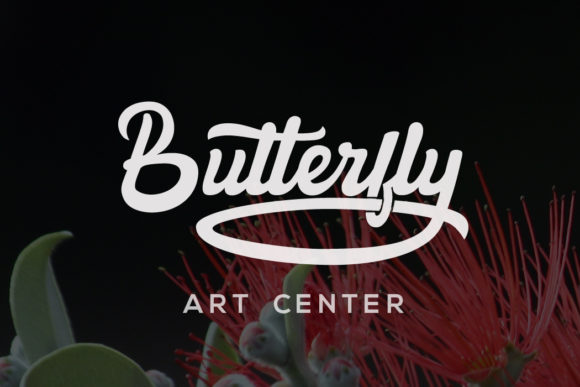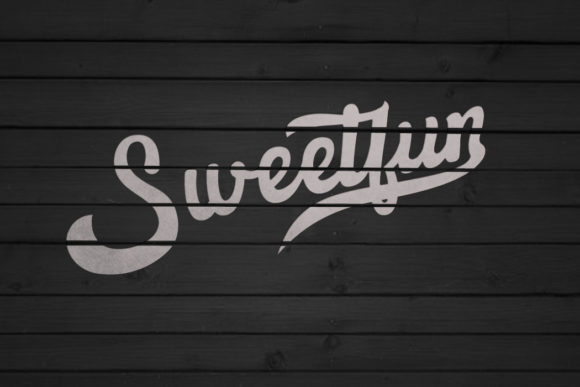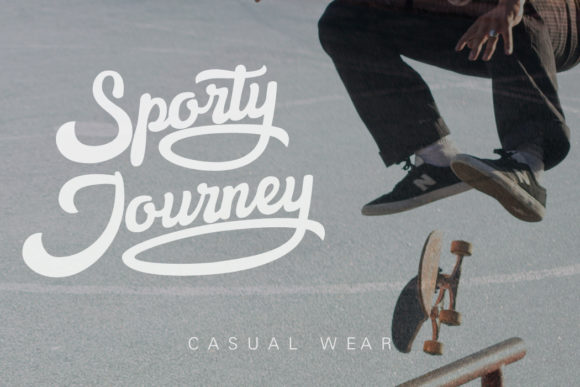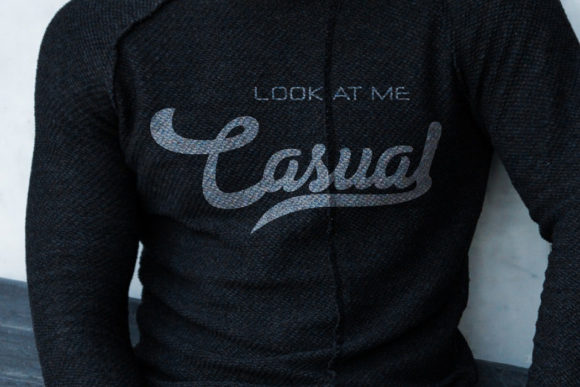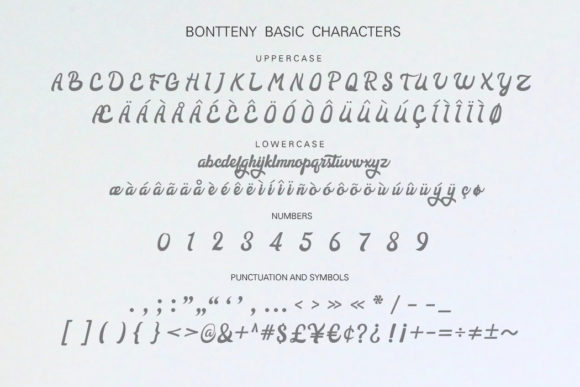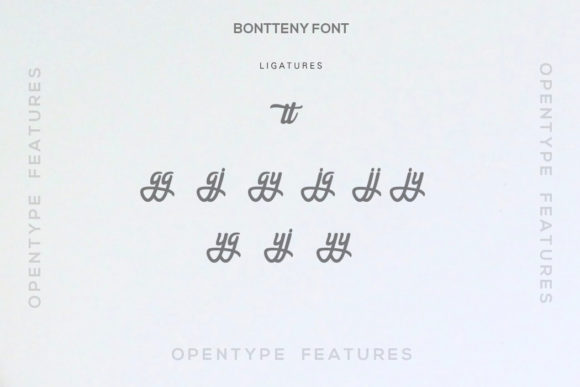
The Perfect Blend of Vintage Charm and Modern Flair
Have you ever been rummaging through a dusty old attic or a vintage thrift store, stumbling upon an old poster or a worn-out t-shirt that sparks your creativity? That’s exactly what happened to many designers when they first laid eyes on the Bontteny Font. Its bold, yet elegant script style has been a game-changer for designers looking to add a touch of vintage charm to their designs.
The Bontteny Font is a versatile typeface that’s perfect for logotypes, vintage designs, t-shirts, labels, posters, magazines, and much more. Its unique blend of modern flair and classic style makes it an excellent choice for designers who want to create eye-catching designs that stand out from the crowd.
Whether you’re a seasoned designer or just starting out, the Bontteny Font is an invaluable asset to have in your toolkit. Its wide range of applications and stylish design make it a valuable resource that’s sure to elevate your designs to the next level.
Bontteny Font Key Features
- Font Family: Bontteny is a script font, ideal for creating elegant and sophisticated designs.
- Font Size: Bontteny is available in 4 different font sizes, ranging from 8pt to 24pt, making it suitable for a variety of design applications.
- Resolution: Supports high-resolution printing, making it perfect for printing business cards, invitations, and other marketing materials.
- Unique Characteristics: Bontteny features a unique, handwritten feel with subtle flourishes and elegant connections between letters.
- Language Support: Bontteny supports a wide range of languages, including Latin, Cyrillic, and Greek alphabets.
Bontteny Font Review
I recently had the chance to work with the Bontteny font, and I must say it’s an interesting addition to my design arsenal. ✨ The first thing that caught my attention was its unique blend of modern and classic elements, making it a great choice for projects that require a touch of elegance and sophistication.
One of the things that works well with Bontteny is its versatility. ✨ It comes in a variety of weights, from light to bold, allowing me to create a range of styles and moods. The font is also highly legible, making it perfect for body text and titles alike. Additionally, its open-source license makes it easily accessible to designers of all levels.
- ⚠️ The font may not be suitable for extremely large or small text sizes, as it can become difficult to read.
- ⚠️ Some users may find the font’s lines and curves a bit too ornate, which can make it challenging to pair with other fonts.
Overall, I’m impressed with the Bontteny font’s potential, but it’s not without its limitations. With some careful consideration and experimentation, I believe it can be a valuable addition to any designer’s toolkit.
The Bontteny font is a unique and versatile font that can be used in various design applications. To use it in your projects, follow these steps:
Use the Bontteny font to add a touch of elegance and sophistication to your designs. Pair it with other fonts to create a unique and eye-catching visual identity.
Experiment with different font sizes, colors, and styles to create a cohesive look that reflects your brand’s personality.
The Bontteny font is ideal for:
• Branding and logo design
• Editorial and publishing projects
• Wedding and event invitations
• Luxury and high-end product packaging
Alternatives to Bontteny Font
Playfair Display is a high-end serif font suitable for luxury brands, high-end products, and elegant designs. It is ideal for use in headlines, titles, and other large-scale typography. Playfair Display has a more refined and sophisticated feel compared to Bontteny Font, making it perfect for high-end branding and advertising.
Comparison: While Bontteny Font has a vintage feel, Playfair Display has a more luxurious and elegant feel. Playfair Display is better suited for formal and upscale designs, whereas Bontteny Font is more versatile and can be used in a variety of contexts.
Is Bontteny font available in different font weights and styles?
Yes, Bontteny font is available in multiple font weights, ranging from Light to Extra Bold. The font family also includes italic and bold-italic styles, providing a comprehensive range of options for designers and typographers. This allows for a high degree of flexibility and control when using the font in various design applications.